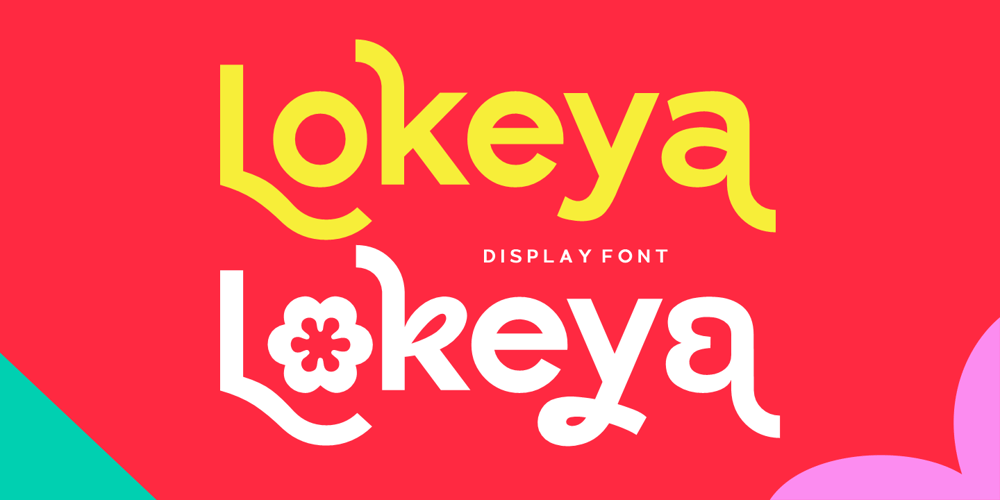
Lokeya Font Family was designed by Risca Anitawati and published by Reyrey Blue Std. Lokeya contains 2 styles and family package options. Introducing Lokeya the new san serif typeface. It is clean, cute, modern and playful san serif . Lokeya contain several stylistic alternates that can make it unique and different. You can mix & match it to create the perfect combination of your design.Lokeya is perfect for branding projects, Logo design, Clothing Branding, product packaging, magazine headers, or any kind of advertising purpose.Features :· All Uppercase and Lowercase· Number & Symbol· Supported Languages· Alternates and Ligatures· PUA EncodedHope you enjoy with our font!